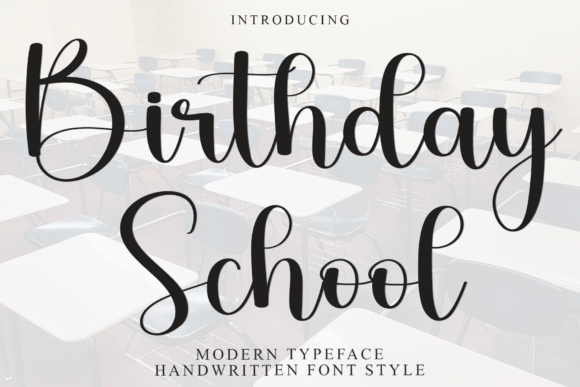
Where Creativity Meets Personality: Unveiling the Birthday School Font
Have you ever sat down with a cup of coffee, a blank sheet of paper, and a pen, and let your imagination run wild? That’s exactly where the magic happens – in the unscripted moments of creativity. For designers, these moments are often the spark that sets off a chain reaction of inspiration, leading to new ideas and innovative projects. And for those who value the charm of hand-lettered typography, the Birthday School Font is the perfect tool to bring their vision to life.
This beautifully flowing script font is more than just a design element – it’s an extension of your personal style. With its smooth curves and natural rhythm, the Birthday School Font is ideal for a wide range of applications, from personal stationery and wedding designs to logos and quotes. Whether you’re looking to add a touch of elegance or playfulness to your designs, this versatile font is sure to impress.
Birthday School Font Key Features
- Font Family: Birthday School Font offers a variety of font styles, including regular, bold, italic, and bold-italic.
- Character Set: Birthday School Font includes a wide range of characters, including Latin, Cyrillic, and Greek alphabets, as well as punctuation marks and symbols.
- Unique Characteristics: The font features a playful, cursive design with rounded edges and subtle flourishes, making it perfect for creating a celebratory atmosphere.
Birthday School Font Review
Overall, I think Birthday School Font is a great addition to any designer’s toolkit. Here are some things that work well: ✨
- Unique and playful feel: The font’s eclectic style makes it perfect for projects that need a bit of whimsy.
- Wide range of uses: Whether you’re designing a children’s book, a party invitation, or a social media campaign, Birthday School Font is versatile and adaptable.
- High-quality design: The font’s high resolution and crisp lines make it a pleasure to work with.
- Not suitable for formal projects: While the font is great for playful projects, it may not be the best choice for more formal or professional designs.
- Limited font weights: The font only comes in a few weights, which may limit its usability in certain situations.
Overall, I think Birthday School Font is a fun and useful addition to any designer’s library. With its unique style and high-quality design, it’s perfect for projects that need a bit of personality.
The Birthday School Font is commonly used for:
- Party invitations and decorations.
- Children’s birthday party graphics and designs.
Great Vibes is a modern, elegant script font suitable for creating a sense of sophistication and refinement. It is ideal for wedding invitations, greeting cards, and other celebratory designs. Compared to Birthday School Font, Great Vibes has a more refined and polished look, making it a better choice for high-end or formal designs.
Carolyna Pro is a contemporary script font with a mix of elegance and playfulness. It is suitable for a wide range of designs, from fashion and beauty to food and lifestyle. Compared to Birthday School Font, Carolyna Pro has a more versatile and adaptable design, making it a better choice for designers who want a font that can work across multiple projects.